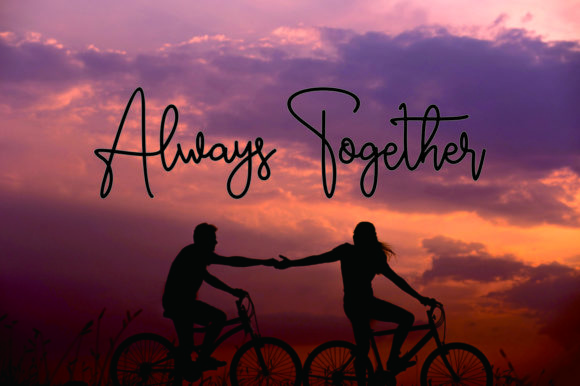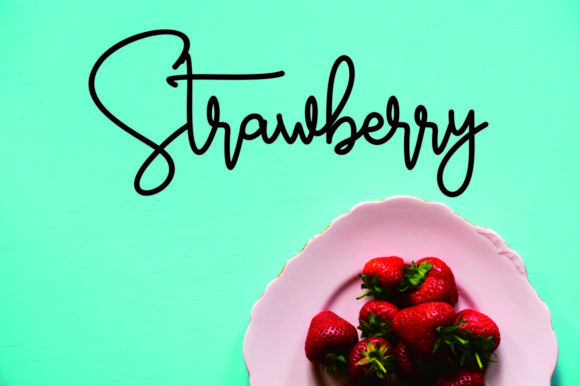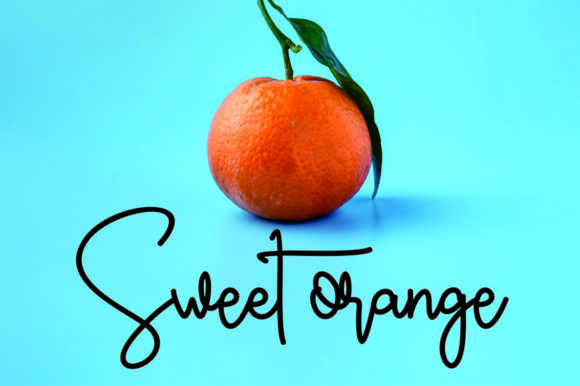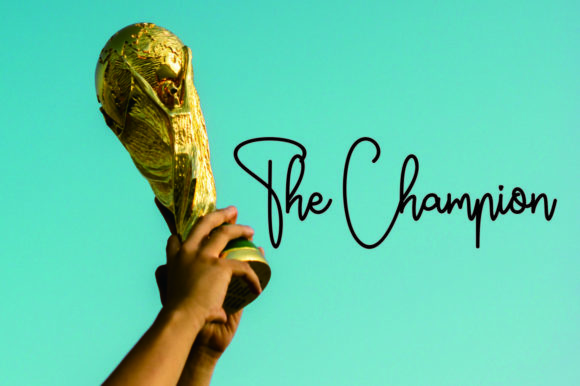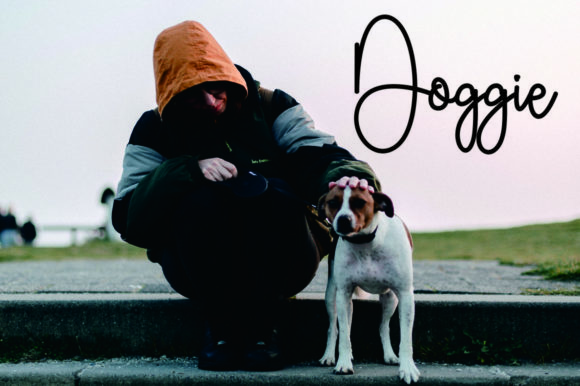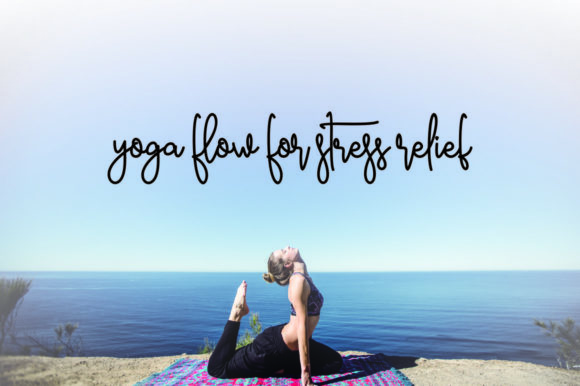
Discover the Elegance of Bertrade Font: Elevate Your Design Projects
Are you on the hunt for a font that exudes sophistication and friendliness? Look no further than Bertrade Font, a stylish script font designed to add a touch of elegance to any design project. In this article, we’ll dive into the world of Bertrade, exploring its features, uses, and benefits for designers and crafters alike.
What is Bertrade Font?
Bertrade is a cool and friendly script font that boasts a unique blend of modernity and classic charm. Its flowing lines, subtle curves, and carefully crafted letterforms make it an excellent choice for designs that require a sophisticated appearance. Whether you’re working on a logo, branding materials, or creative projects, Bertrade Font is sure to make a lasting impression.
Key Features of Bertrade Font
- Unique Script Style: Bertrade Font features a distinctive script style that’s both elegant and approachable. Its letters are designed to flow smoothly, creating a sense of continuity and harmony.
- Sophisticated Appearance: With its refined lines and classic curves, Bertrade exudes sophistication and poise. It’s perfect for designs that require a touch of luxury and refinement.
- Versatile and Adaptable: Bertrade Font is incredibly versatile, making it suitable for a wide range of design projects, from logos and branding materials to packaging, posters, and more.
- Ease of Use: Bertrade Font is easy to read and works beautifully in various sizes, making it a practical choice for designers and crafters.
Benefits of Using Bertrade Font
So, why choose Bertrade Font for your design projects? Here are just a few benefits you can expect:
- Instant Sophistication: Bertrade Font adds an instant touch of sophistication to any design, elevating it from ordinary to extraordinary.
- Emotional Connection: The friendly and approachable nature of Bertrade Font helps create an emotional connection with your audience, making your design more relatable and memorable.
- Flexibility: Bertrade Font can be used in various design contexts, from digital platforms to print materials, ensuring consistency across your brand’s visual identity.
- Time-Saving: With Bertrade Font, you can achieve professional-looking results without spending hours on font selection and design refinement.
Who Can Benefit from Bertrade Font?
Bertrade Font is an excellent choice for a variety of designers and crafters, including:
- Graphic Designers: Add a touch of elegance to your branding materials, logos, and marketing collateral.
- Logotype Designers: Create stunning logos that make a lasting impression with Bertrade Font’s unique script style.
- Crafters and Artists: Elevate your craft projects, such as handmade cards, invitations, and DIY packaging, with Bertrade Font’s sophisticated charm.
- Digital Designers: Use Bertrade Font to create engaging digital content, including social media graphics, blog posts, and website headers.
Tips for Using Bertrade Font Effectively
To get the most out of Bertrade Font, keep the following tips in mind:
- Pair with Complementary Fonts: Combine Bertrade Font with complementary fonts to create visual interest and hierarchy in your design.
- Experiment with Colors: Try Bertrade Font with different colors to find the perfect match for your brand’s visual identity.
- Pay Attention to Spacing: Ensure adequate spacing between letters and lines to maintain readability and visual flow.
| Author | NJStudio |
In conclusion, Bertrade Font is an exceptional script font that offers a unique blend of sophistication and friendliness. Its versatility, ease of use, and elegant design make it an excellent choice for designers and crafters looking to elevate their projects. Whether you’re working on a logo, branding materials, or creative projects, Bertrade Font is sure to make a lasting impression. So why wait? Discover the elegance of Bertrade Font and take your design projects to the next level!